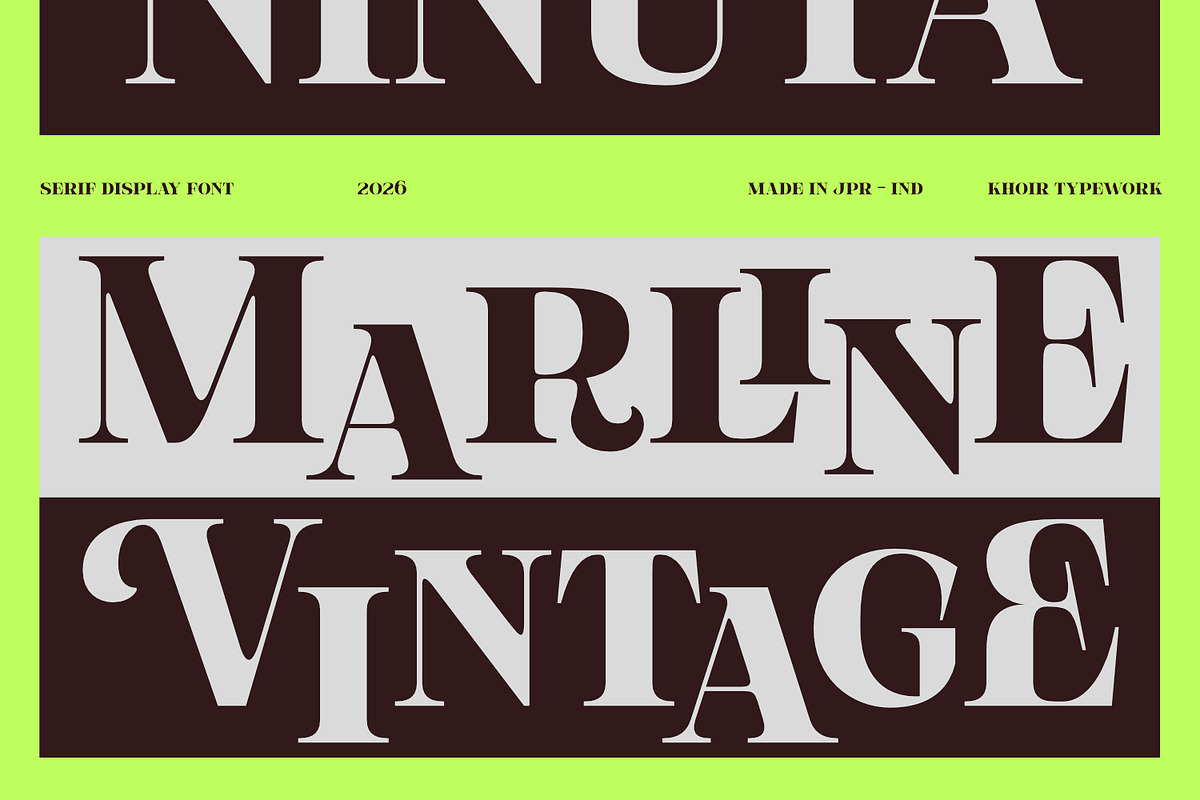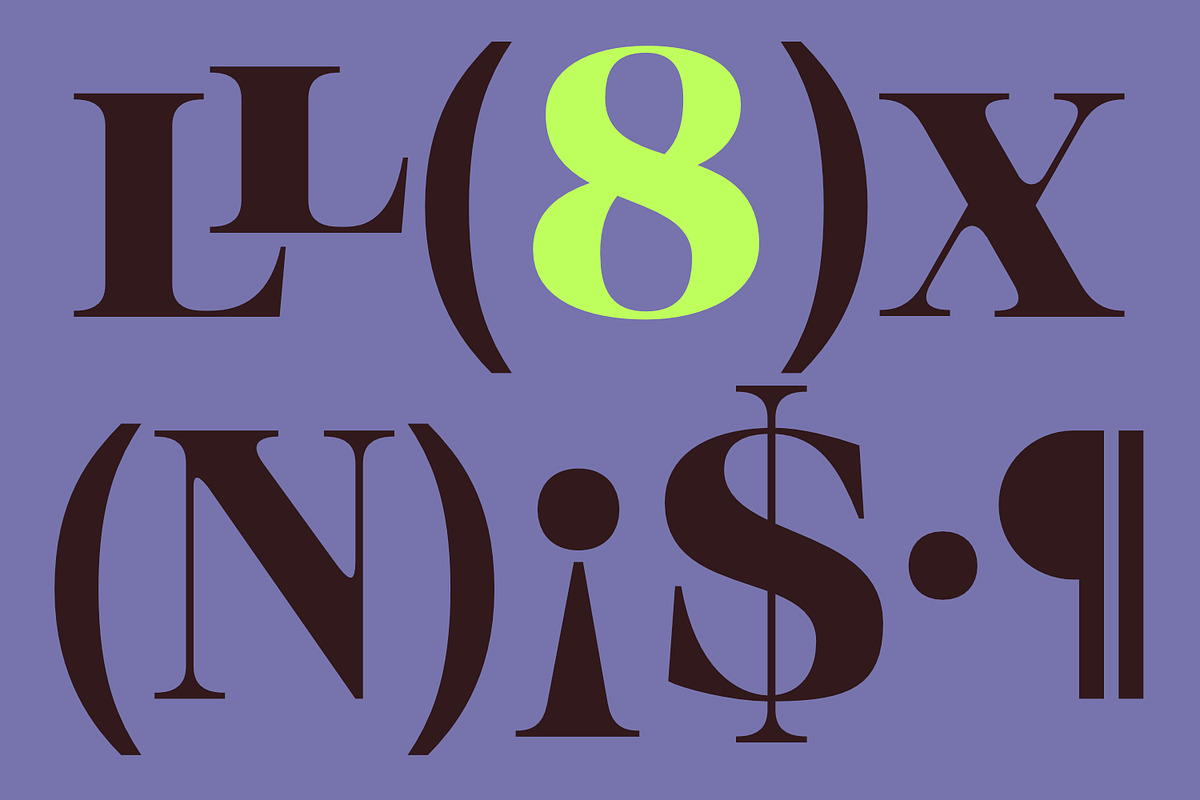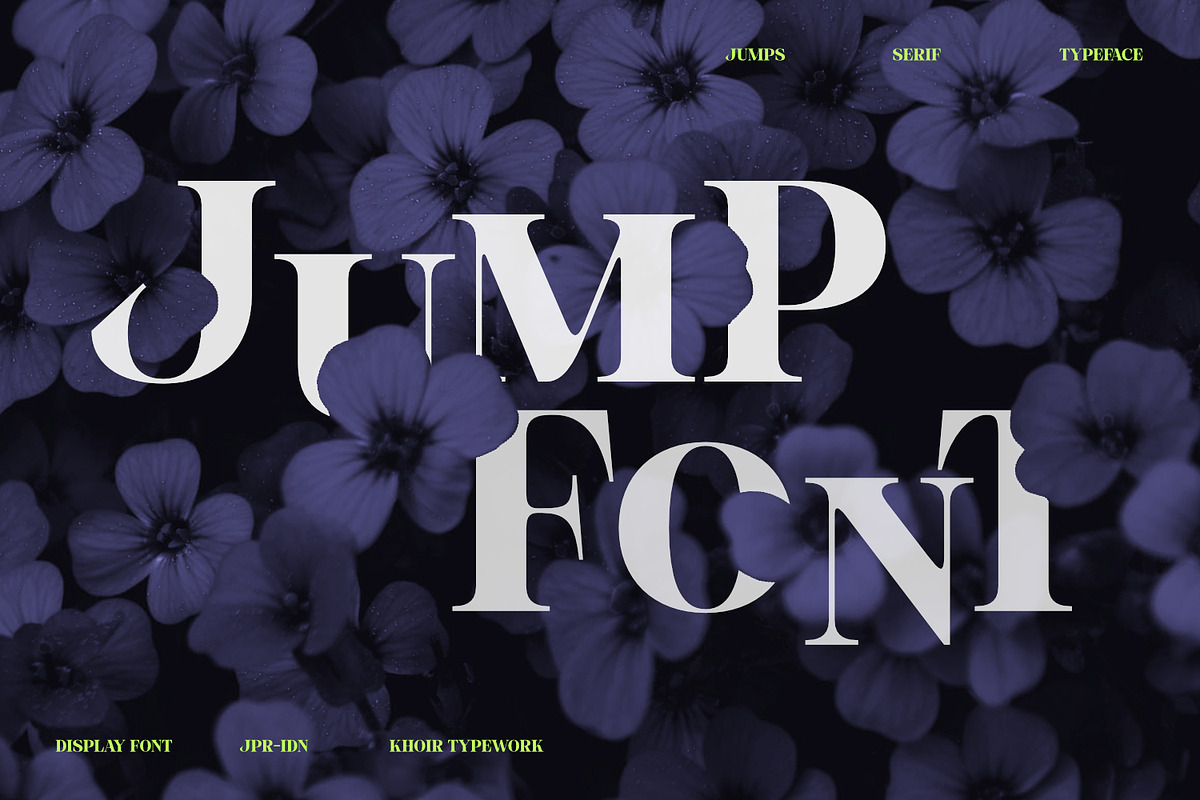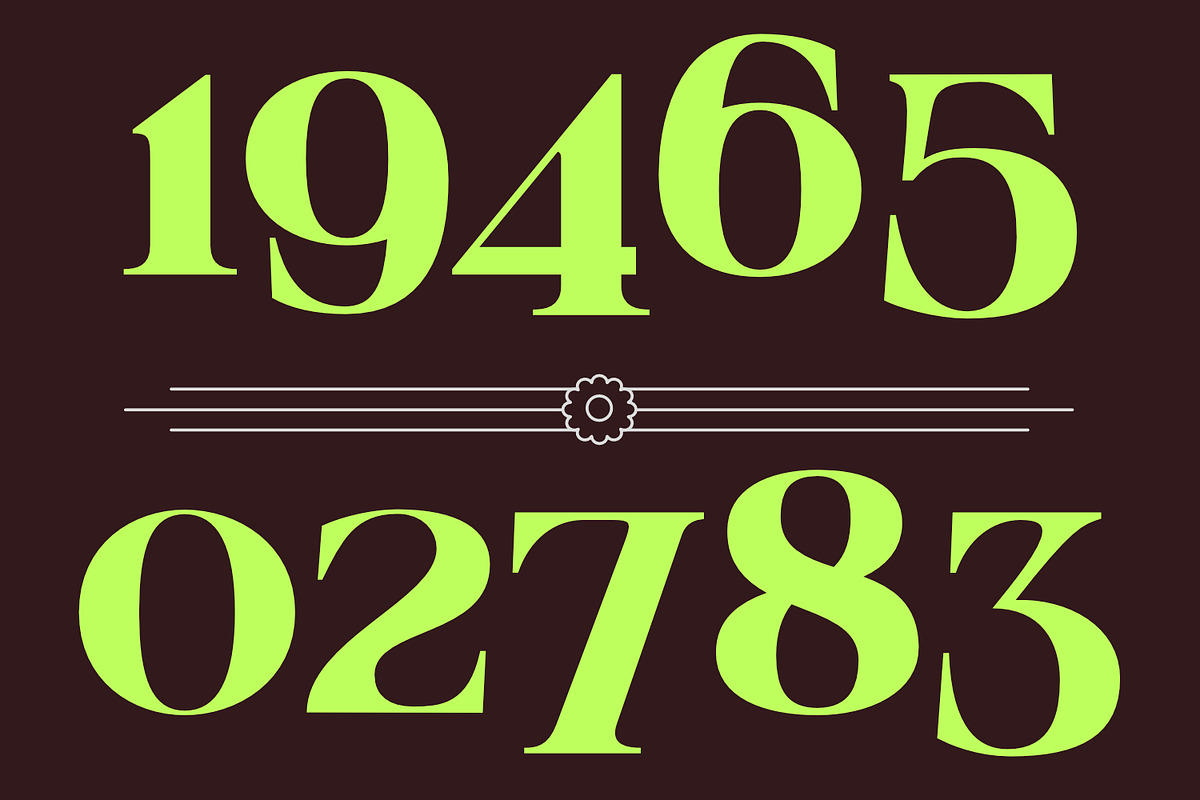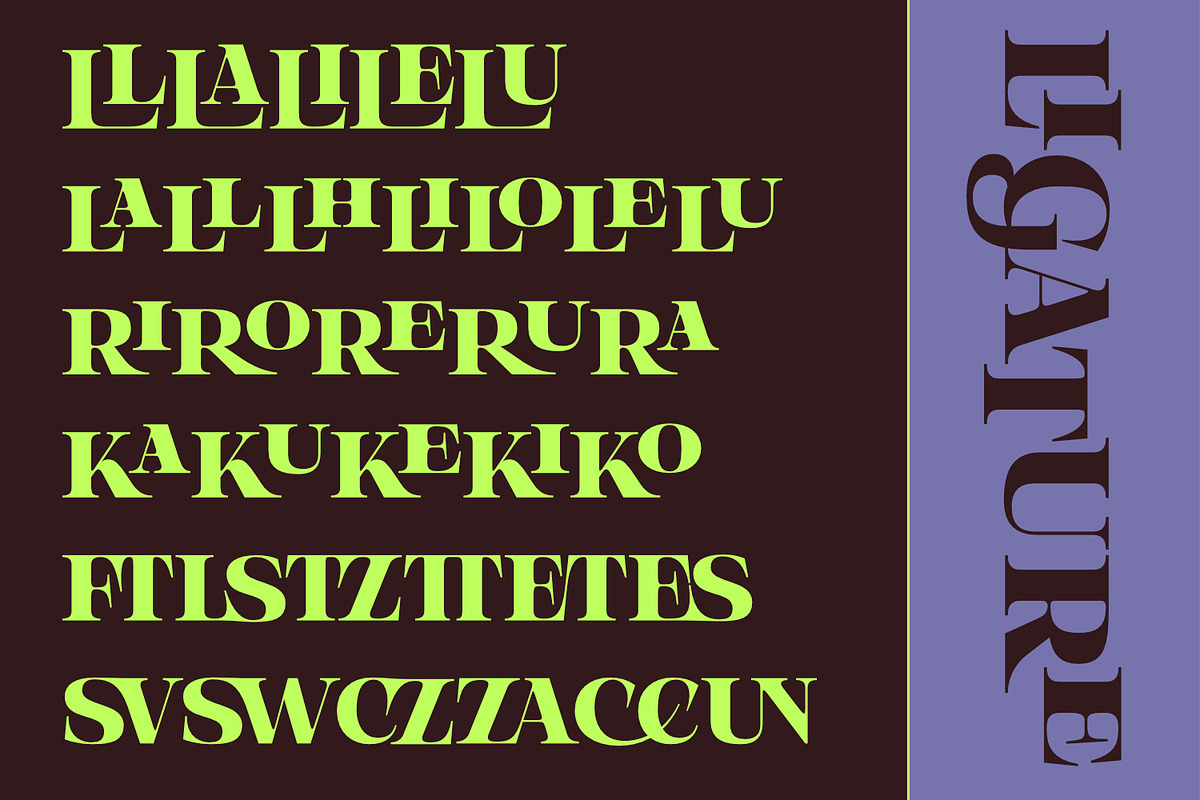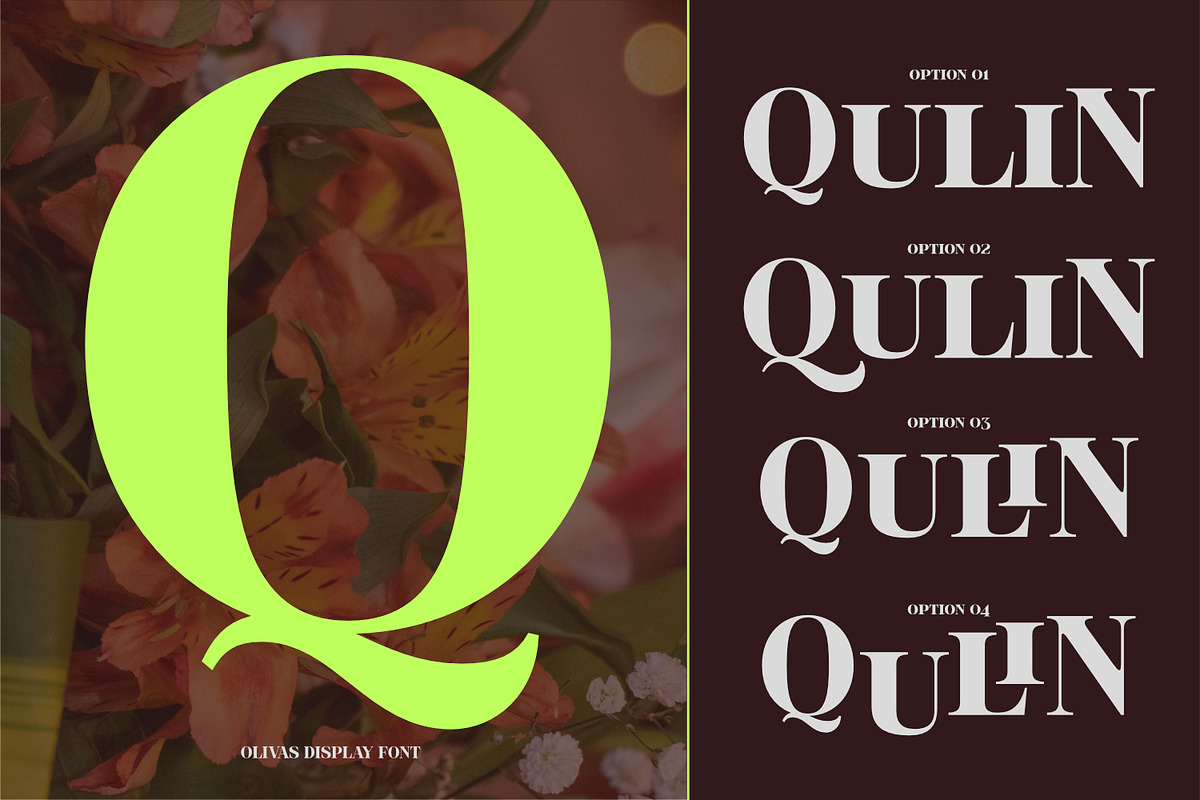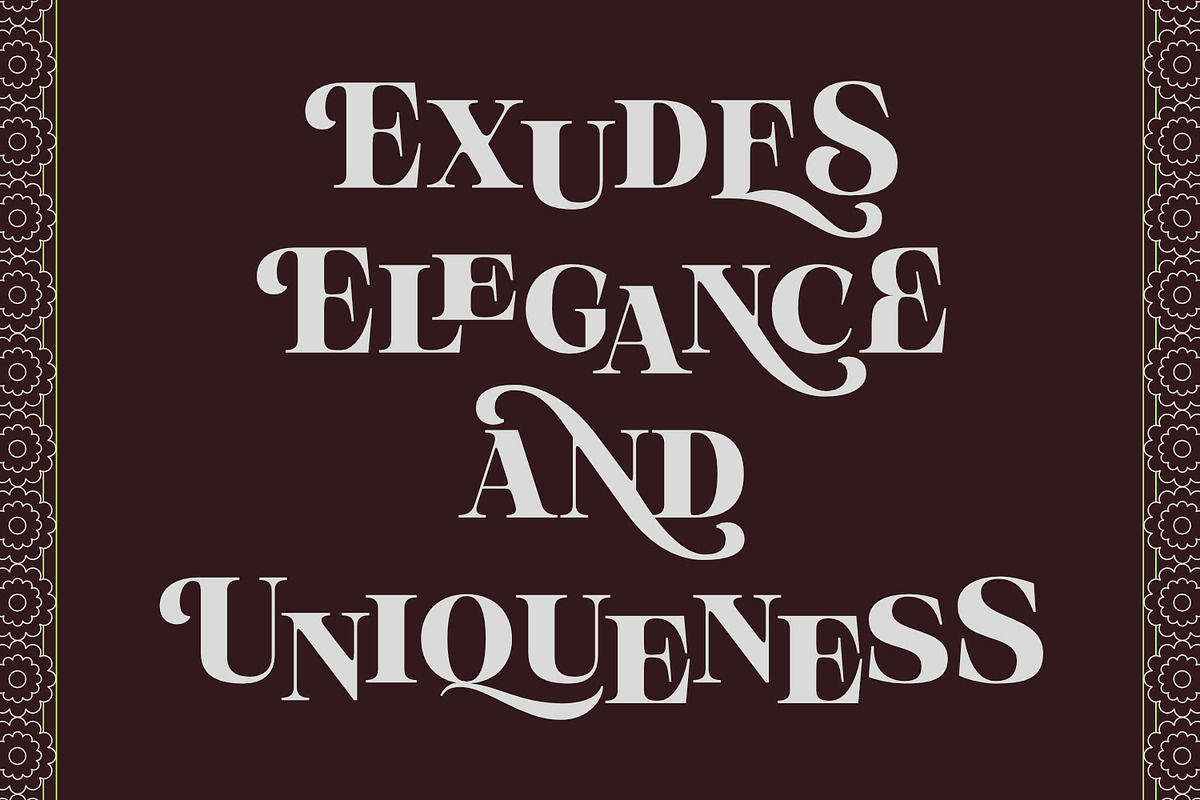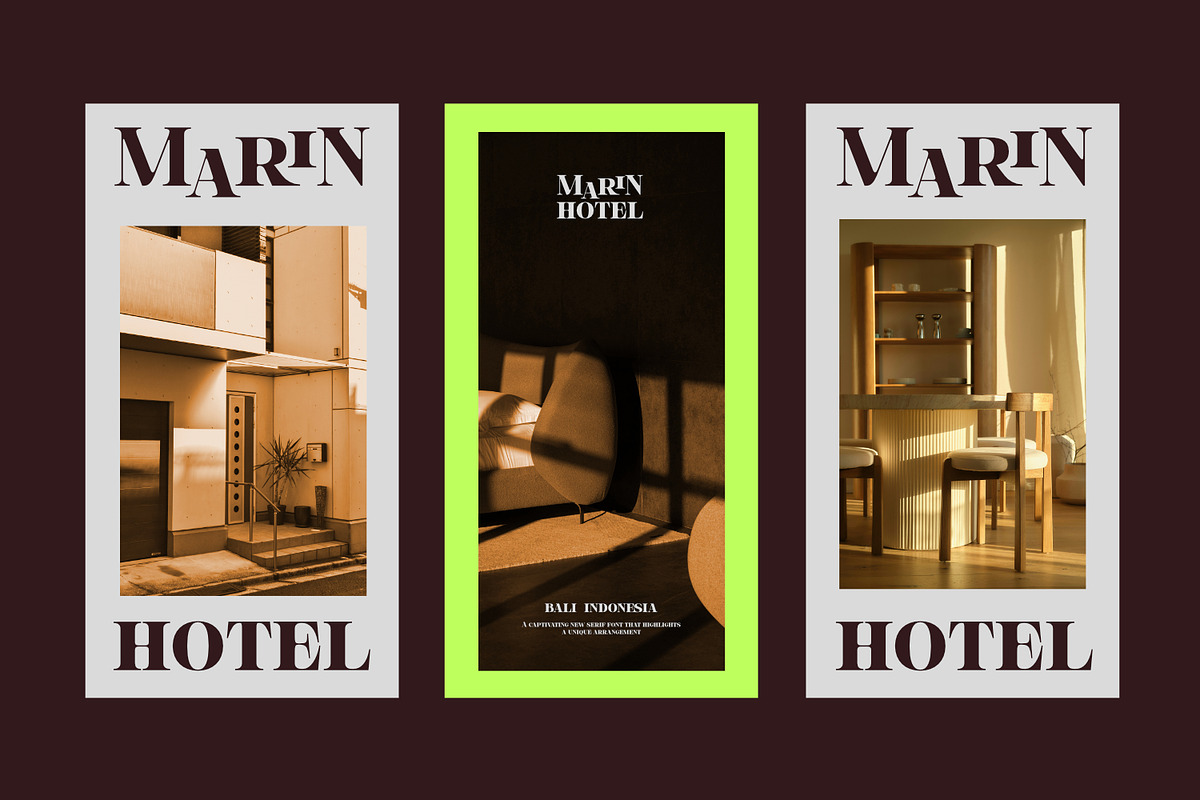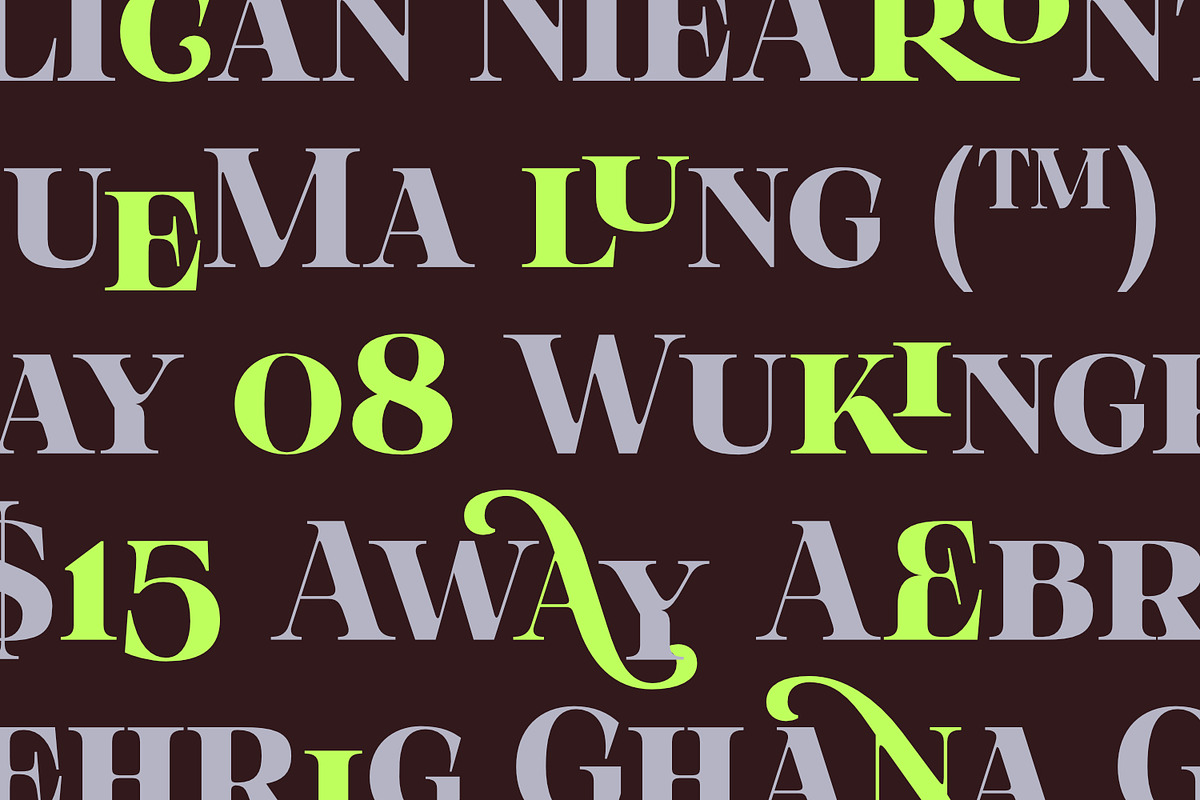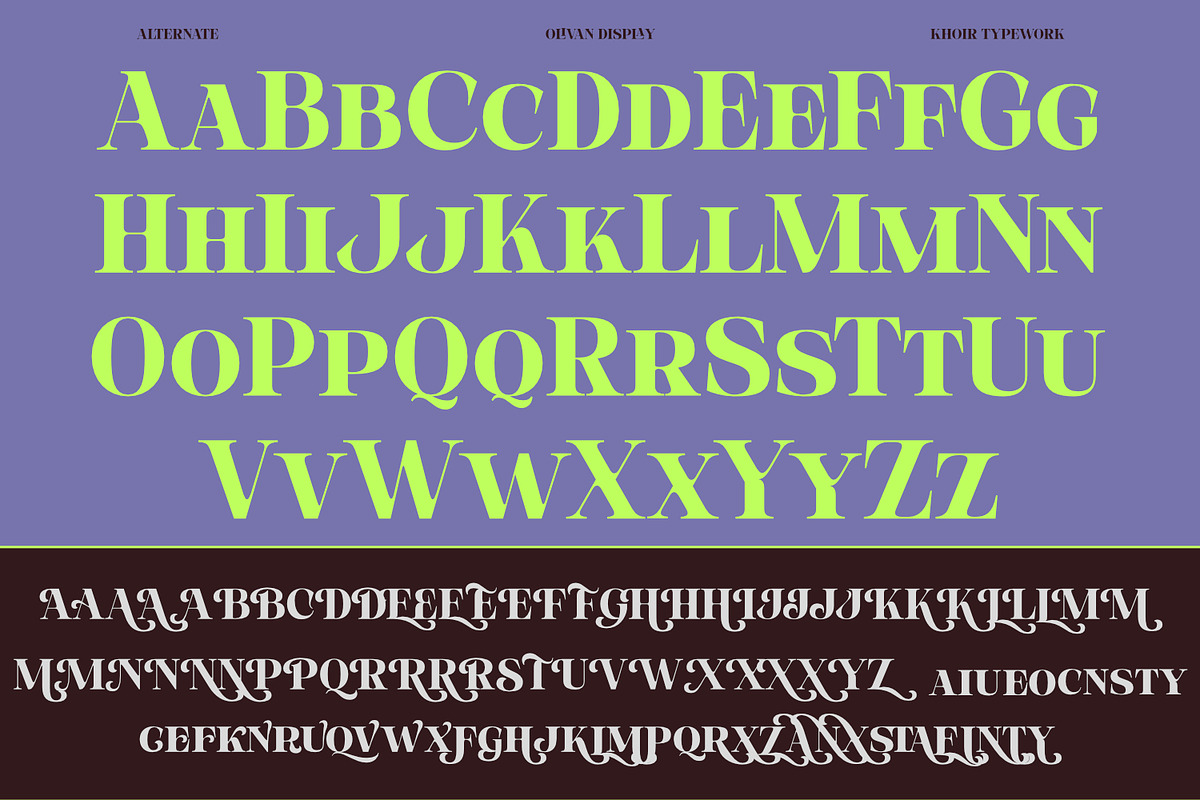
Olivas
A captivating new serif font that highlights a unique arrangement of characters through the use of ligatures, alternate characters, and a distinctive interplay between uppercase and lowercase letterforms. This font allows for free creative exploration while maintaining an elegant and masculine aesthetic.
This font is perfect for classic or retro-themed designs, though it is certainly suitable for modern designs as well. So, feel free to give it a try.